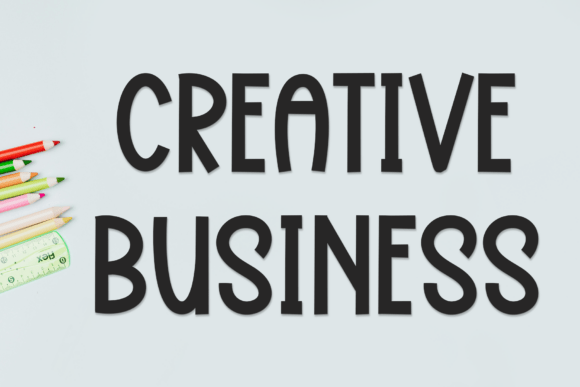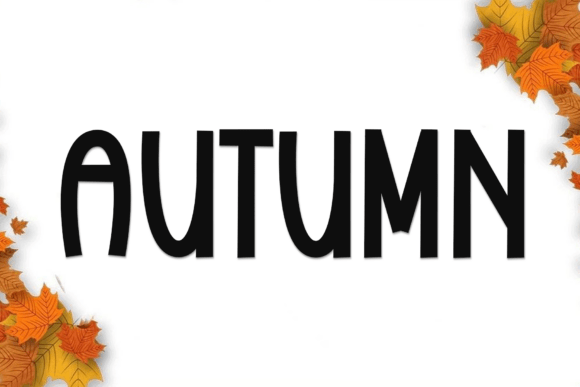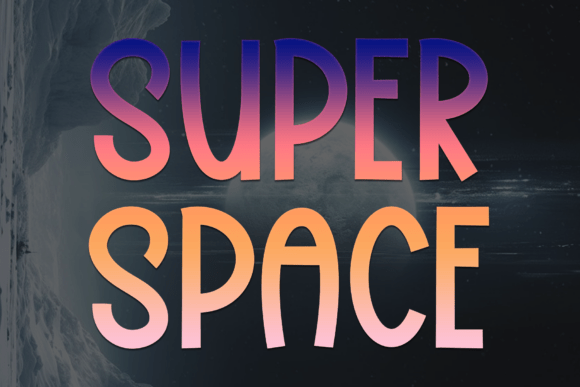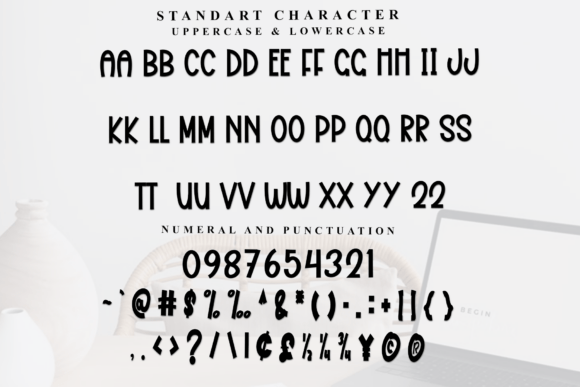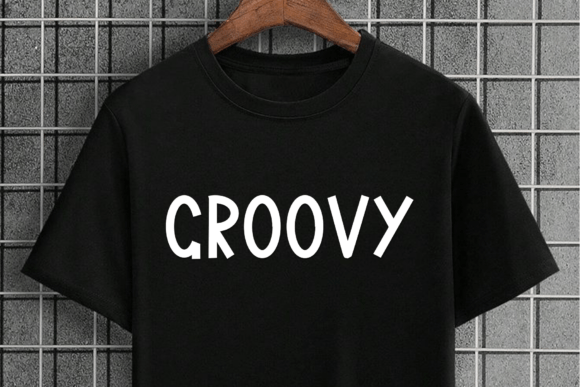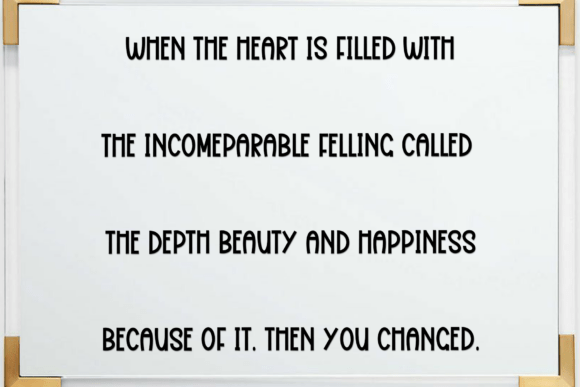
Autumn Spirit Font: Add a Touch of Holiday Magic to Your Designs
As the holiday season approaches, designers and crafters are on the lookout for the perfect typography to capture the spirit of the season. Look no further than the Autumn Spirit Font, a festive and merry typeface that brings a touch of enchantment to your designs. With its decorative elements and whimsical flair, this font is perfect for greeting cards, gift tags, and holiday-themed projects.
The Perfect Holiday Font
Autumn Spirit Font is designed to evoke the nostalgia and cheer of the holiday season. Its unique and playful design makes it stand out from other fonts, adding a touch of magic to your words. Whether you’re creating greeting cards, gift tags, or holiday-themed projects, this font is sure to bring a smile to the faces of your recipients. The font’s decorative elements and whimsical flair make it perfect for a variety of design projects, from festive flyers to holiday-themed social media graphics.
Key Features of Autumn Spirit Font
- PUA Encoded: Autumn Spirit Font is PUA encoded, which means you can access all of the amazing glyphs and ligatures with ease. This makes it simple to use and customize the font to suit your design needs.
- Decorative Elements: The font features decorative elements that add a touch of festivity and whimsy to your designs.
- Whimsical Flair: The font’s whimsical flair makes it perfect for holiday-themed projects and designs.
Uses for Autumn Spirit Font
Autumn Spirit Font is perfect for a variety of design projects, including:
- Greeting Cards: Add a touch of holiday magic to your greeting cards with Autumn Spirit Font.
- Gift Tags: Create festive gift tags with this charming font.
- Holiday-Themed Projects: Use Autumn Spirit Font to add a touch of whimsy and festivity to your holiday-themed projects, such as flyers, brochures, and social media graphics.
- Crafting Projects: This font is perfect for crafters who want to add a personal touch to their holiday crafts, such as scrapbooking and card making.
Autumn Spirit Font is a festive and merry typeface that captures the spirit of the holiday season. With its decorative elements and whimsical flair, it adds a touch of enchantment to your designs. Perfect for greeting cards, gift tags, and holiday-themed projects, this font brings a cheerful and nostalgic ambiance to your words. Let your typography shine with the magic of Beautiful Font!